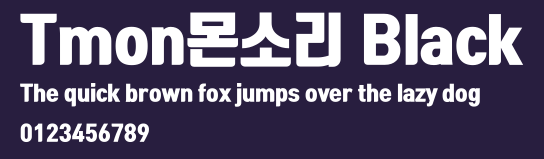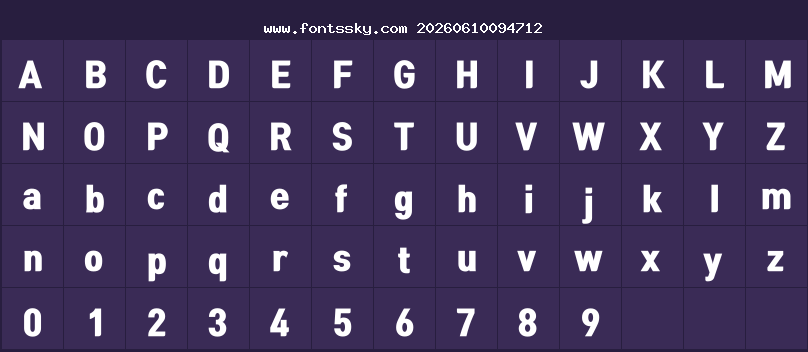
• Font Name: Tmon몬소리 Black
• Full Font Name: Tmon몬소리 Black
• PostScript Name: TmonMonsoriBlack
• Designer: 박용락;
• Manufacturer: TICKETMONSTER
About Tmon몬소리 Black.ttf
Tmon몬소리 Black.ttf is a modern, elegant sans-serif font designed for ultimate readability and visual harmony. Perfect for branding, headlines, web design, and print materials.